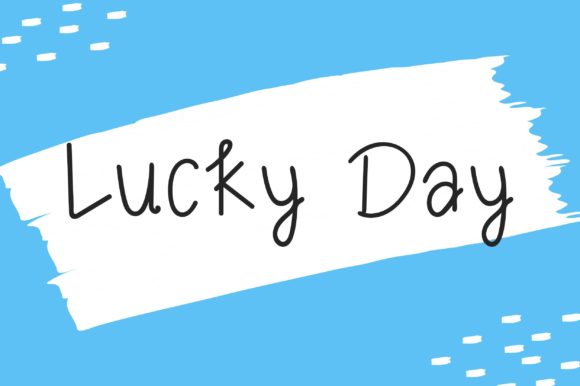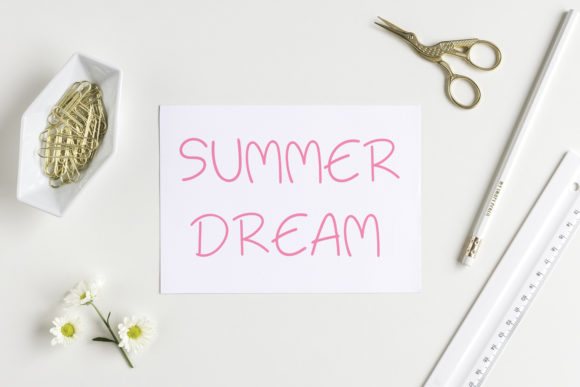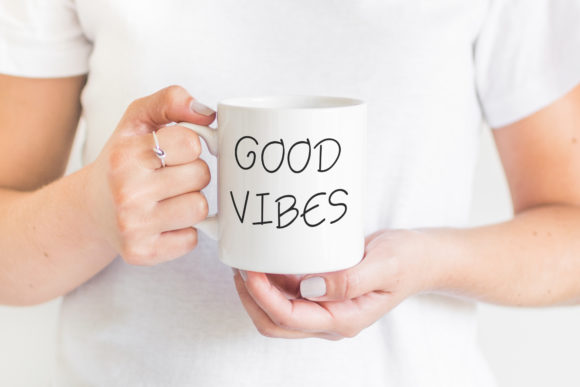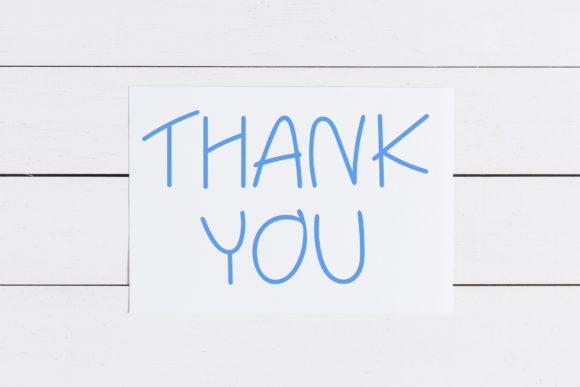
Terrazzo Font
About Terrazzo Font
Terrazzo is a cheerful handwritten font. It will elevate a wide range of design projects to the highest level, be it branding, headings, wedding designs, invitations, signatures, logos, labels, and much more!